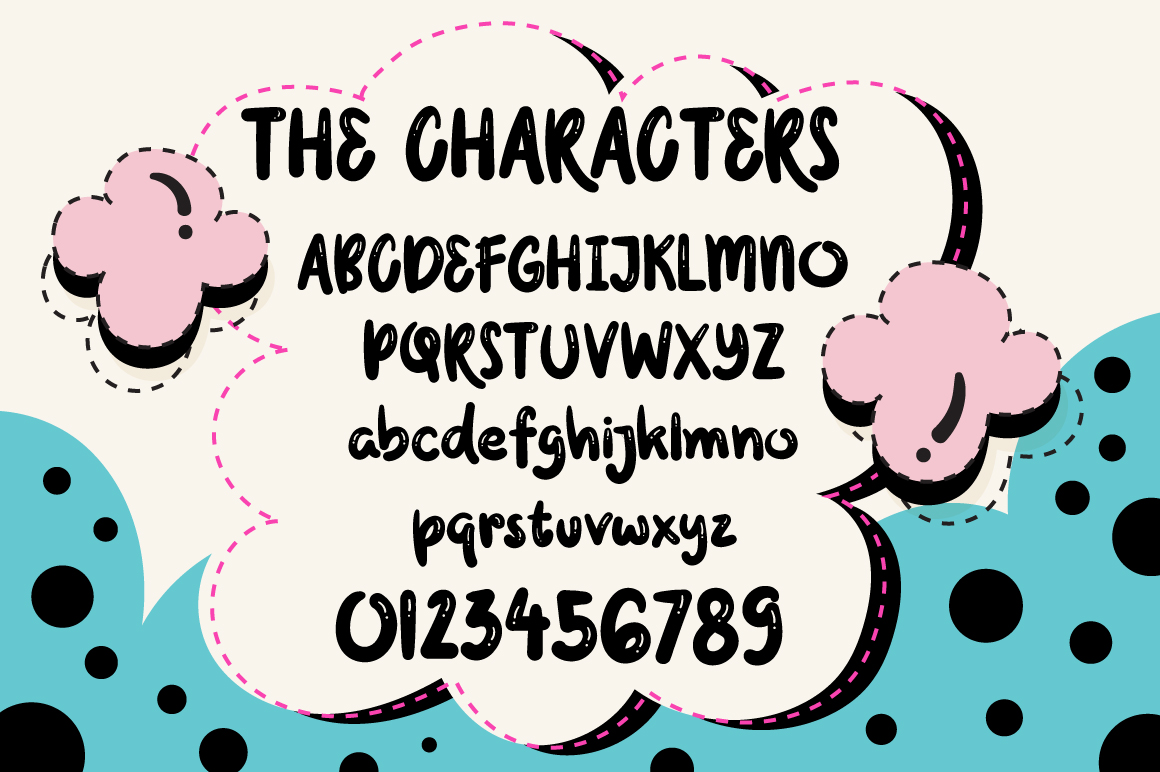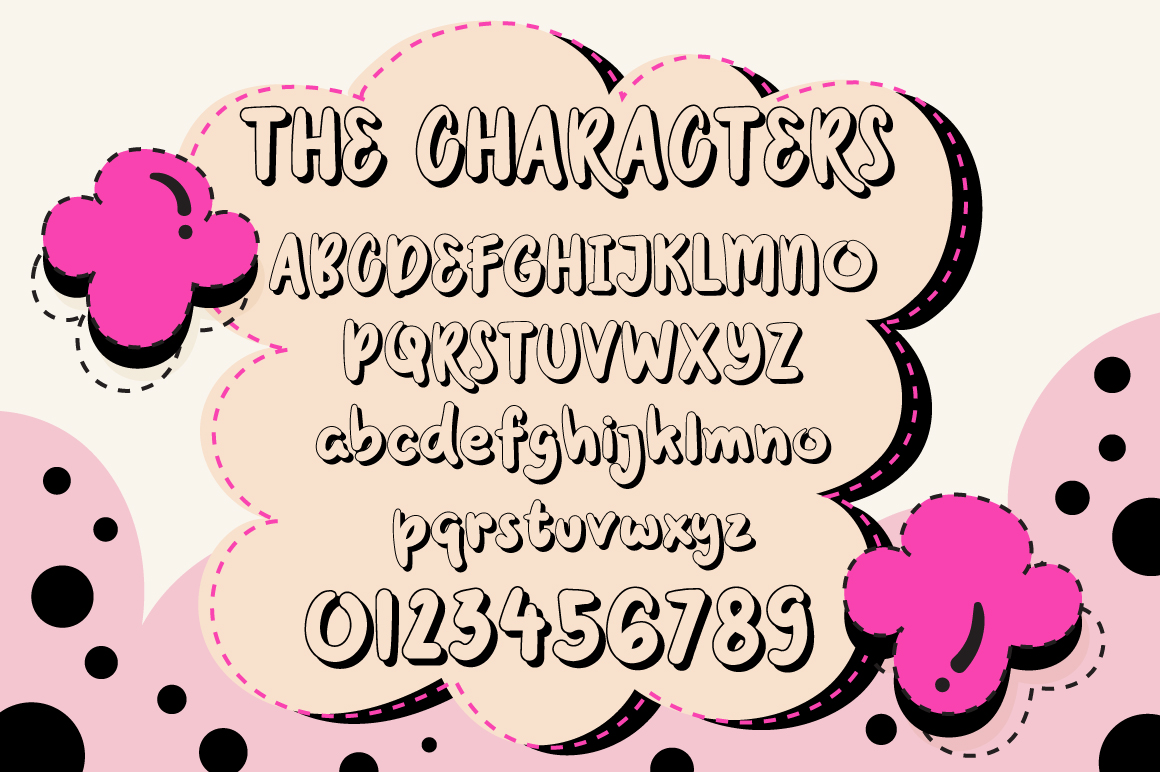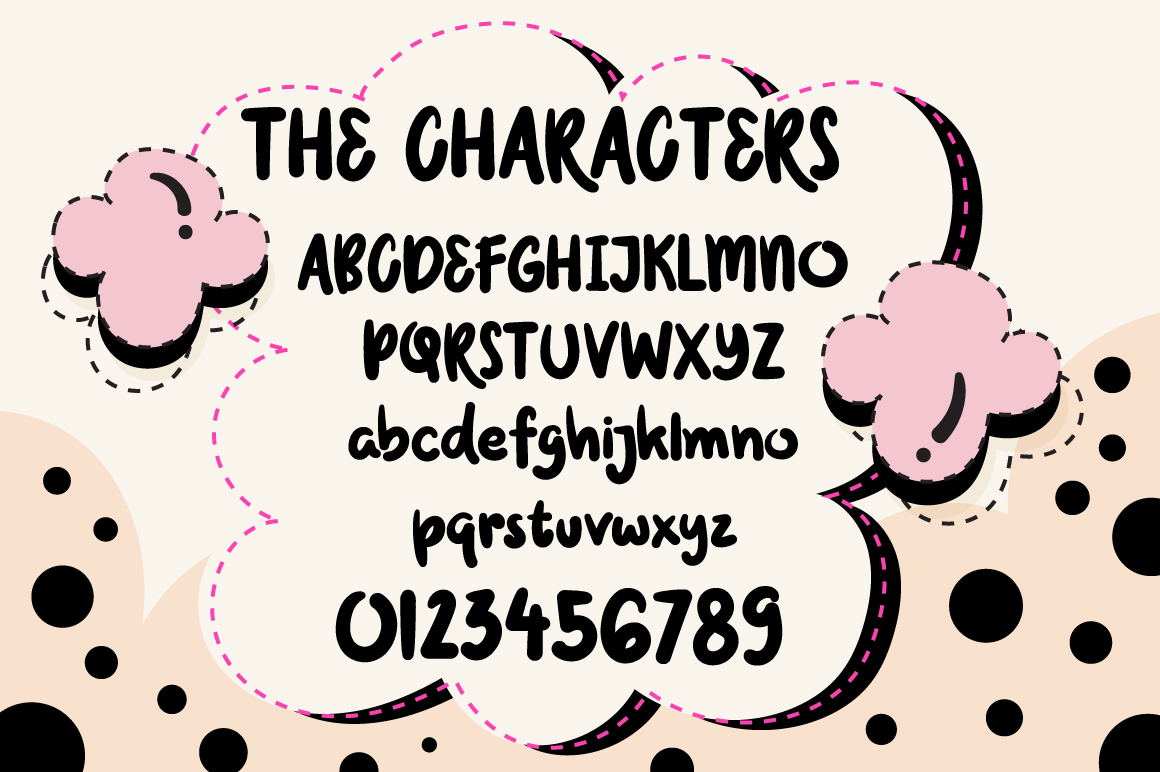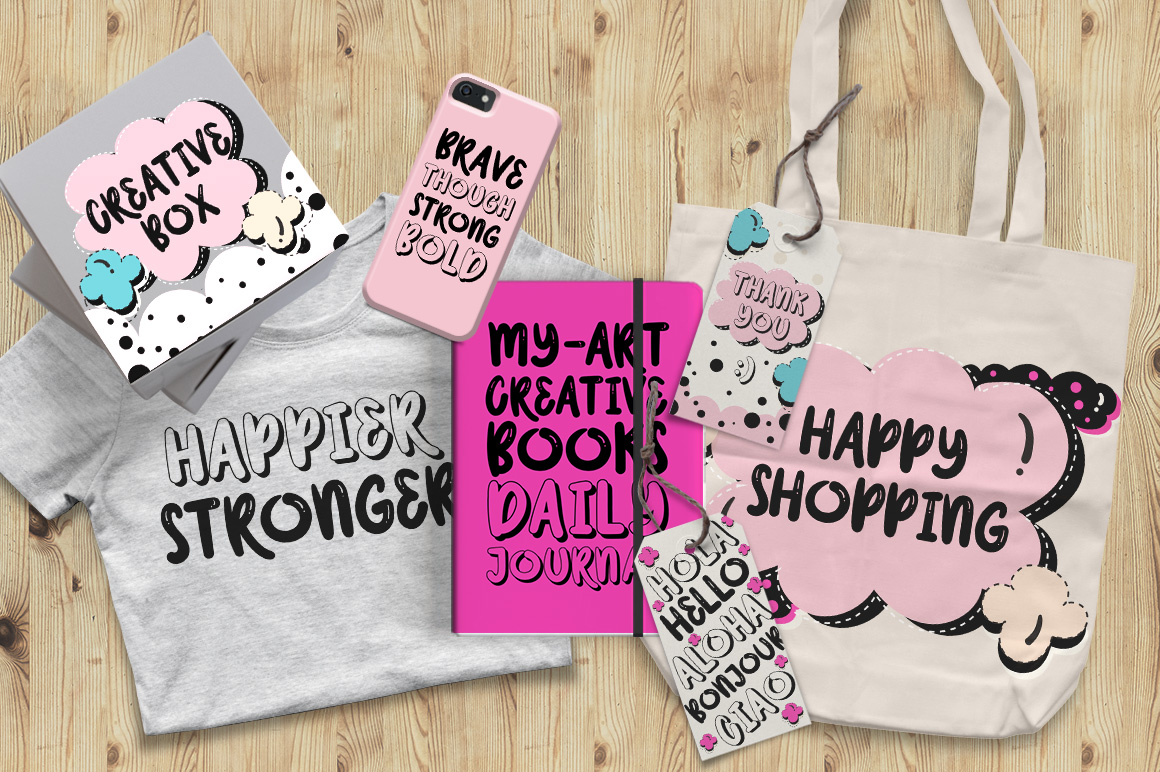
Brain Wash Font: Add a Relaxed Vibe to Your Designs
Are you looking for a font that can give your designs a carefree and playful touch? Look no further than Brain Wash Font! This adorable typeface is perfect for designers and crafters who want to add a relaxed vibe to their projects. In this article, we’ll dive into the features and benefits of Brain Wash Font, and explore how you can use it to elevate your designs.
What is Brain Wash Font?
Brain Wash Font is a cute and creative typeface that is designed to give your designs a laid-back feel. This font comes in three styles, making it versatile and perfect for a variety of projects. Whether you’re working on a girlish design or a light-hearted creative project, Brain Wash Font is sure to impress.
Key Features of Brain Wash Font
- Cute and Creative: Brain Wash Font is a unique and playful typeface that is sure to capture the attention of your audience.
- Three Styles: This font comes in three styles, giving you the flexibility to choose the one that best suits your design.
- Perfect for Girlish Designs: Brain Wash Font is ideal for designs that require a feminine touch, such as fashion blogs, beauty websites, and more.
- Light-Hearted Creative Projects: This font is also perfect for creative projects that require a playful and carefree vibe, such as children’s books, crafts, and more.
Benefits of Using Brain Wash Font
Using Brain Wash Font in your designs can have several benefits. Here are a few:
- Adds a Personal Touch: Brain Wash Font can add a personal touch to your designs, making them more relatable and engaging.
- Creates a Unique Look: This font can help you create a unique look that sets you apart from others.
- Easy to Read: Brain Wash Font is easy to read, making it perfect for designs that require a lot of text.
How to Use Brain Wash Font
Using Brain Wash Font is easy! Here are a few tips to get you started:
- Pair it with Other Fonts: Brain Wash Font can be paired with other fonts to create a unique look. Try pairing it with a bold font for a striking contrast.
- Use it for Headings: Brain Wash Font is perfect for headings and titles. Use it to add a playful touch to your design.
- Experiment with Colors: Brain Wash Font looks great in a variety of colors. Experiment with different colors to find the one that works best for your design.
Design Ideas Using Brain Wash Font
Brain Wash Font can be used in a variety of design projects. Here are a few ideas to get you started:
- Fashion Blogs: Use Brain Wash Font to add a feminine touch to your fashion blog.
- Children’s Books: This font is perfect for children’s books that require a playful and carefree vibe.
- Crafts: Brain Wash Font can be used in craft projects, such as DIY tutorials and handmade product labels.
- Social Media Graphics: Use Brain Wash Font to create social media graphics that are fun and engaging.
Brain Wash Font is a cute and creative typeface that can add a relaxed vibe to your designs. With its three styles and versatility, it’s perfect for a variety of projects, from girlish designs to light-hearted creative projects. Whether you’re a designer or crafter, Brain Wash Font is sure to become a favorite in your toolkit.